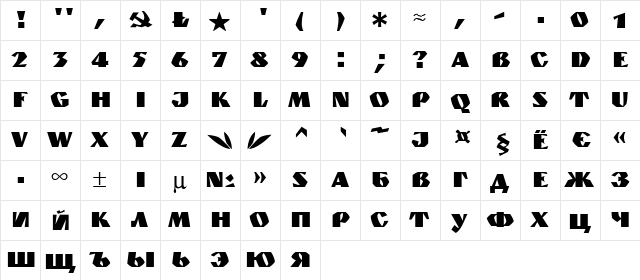
Granit Regular
Design Context for Granit Typeface
Granit is a composed and adaptable typeface that performs quietly and consistently across a wide range of design contexts.